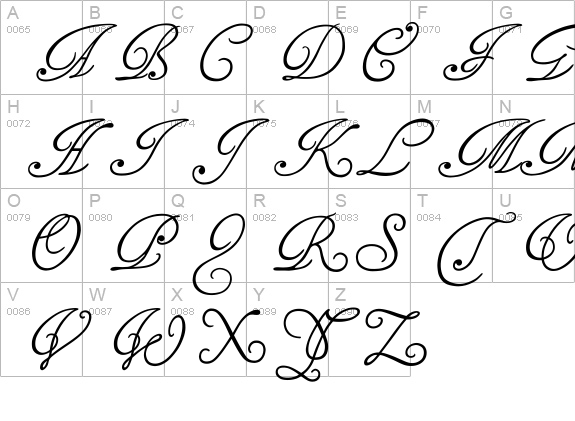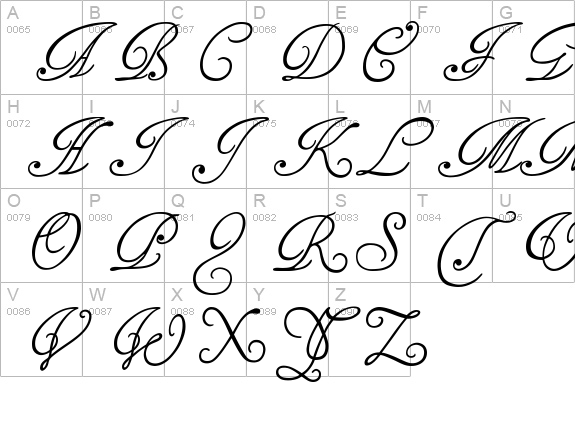
TagettesPlus Font Details
Introducing TagettesPlus, a stunning font that effortlessly combines modern sophistication with timeless elegance. This exquisite typeface brings a touch of refinement to any design project, making it perfect for both professional and personal use. With its beautifully crafted letterforms, TagettesPlus adds a touch of class to logos, branding materials, invitations, and more. Its clean lines and balanced proportions make it highly versatile, allowing it to complement a variety of design styles and themes. But what sets TagettesPlus apart is its accessibility. This font is not only visually captivating but also freely available to download at FontsMarket.com. Yes, you read that right – TagettesPlus can be yours at absolutely no cost, making it an incredible value for designers, students, and anyone seeking to enhance their creative projects without breaking the bank. Whether you're a seasoned designer or just starting out, TagettesPlus offers a seamless user experience. Its wide range of weights and styles ensures that you have the flexibility to achieve the perfect look for your specific project. From bold and impactful to delicate and refined, TagettesPlus has it all. The attention to detail in every character of TagettesPlus is truly exceptional. Each curve, serif, and stroke has been meticulously crafted to create a harmonious typeface that exudes elegance and professionalism. The result is a font that not only catches the eye but also leaves a lasting impression on anyone who encounters it. TagettesPlus is not just a font – it's a statement. It represents a commitment to quality, creativity, and accessibility. So why wait? Head over to FontsMarket.com and download this remarkable font today. Unlock your design potential and elevate your projects to new heights with TagettesPlus – the font that is both visually captivating and freely available.